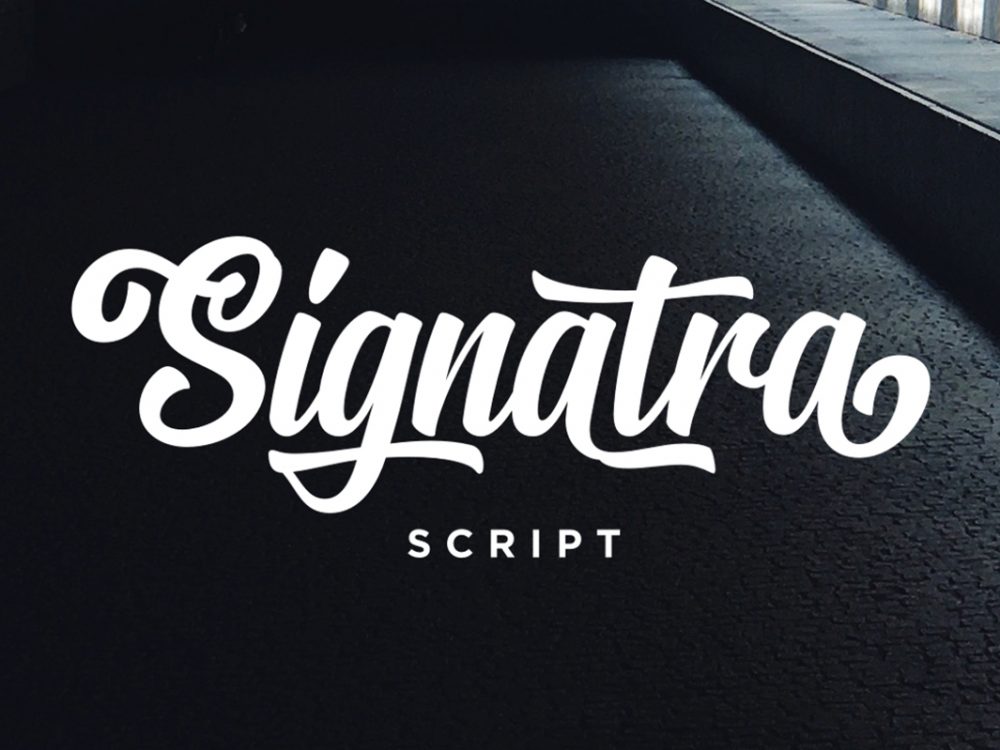
Signatra Free Font Demo
Signatra Free Font Demo is an interesting modern typeface that has been created from scratch with great attention to detail. Perfect for posters, cards, logos, wedding invitations, and more. To use it commercially and access more features please buy the full version.